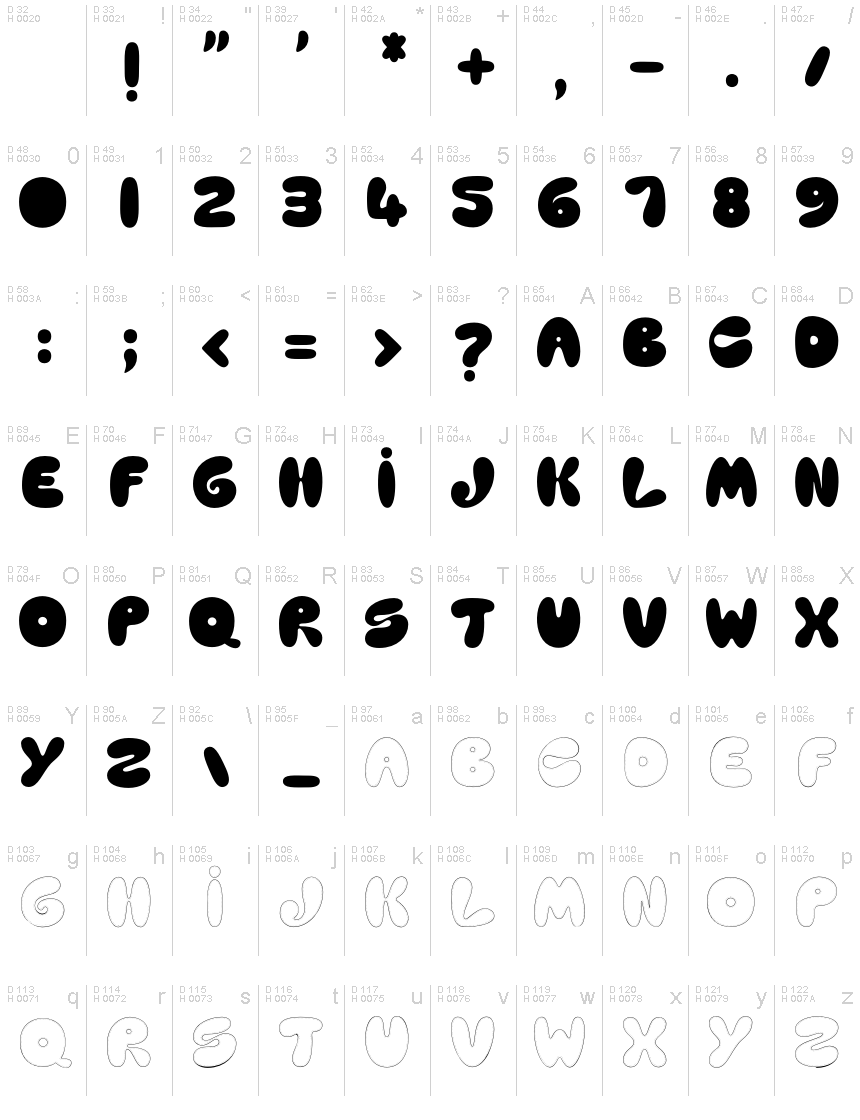
Fony
Fony Font by Daniel Chi is a vibrant display font that infuses your projects with cheerful animation and playful elegance. With its bold weight and cartoon-inspired style, Fony captures attention through its rounded edges and whimsical charm.
Perfect for invitations, posters, and social media graphics, this font adds a touch of joy to any design. Best of all, Fony is a free font available for download for both personal and commercial use.